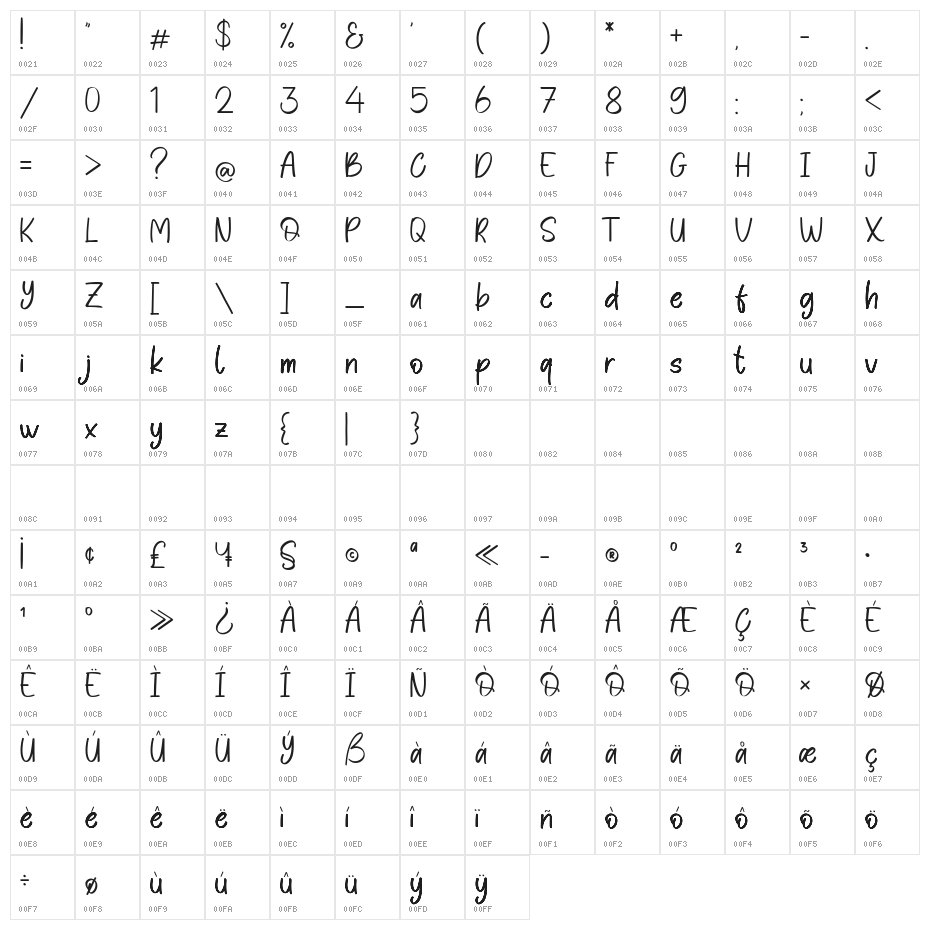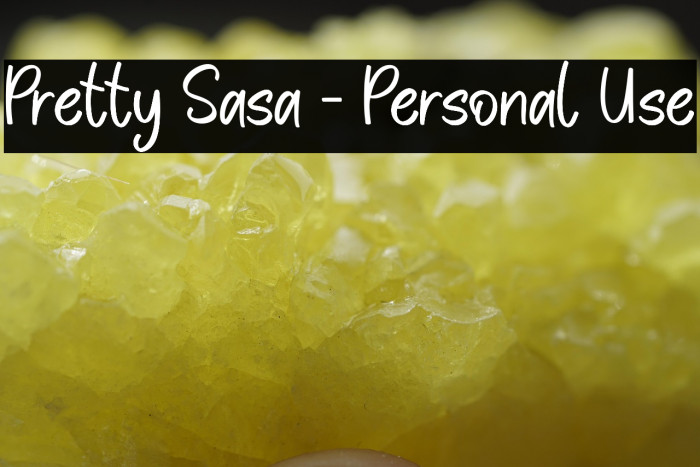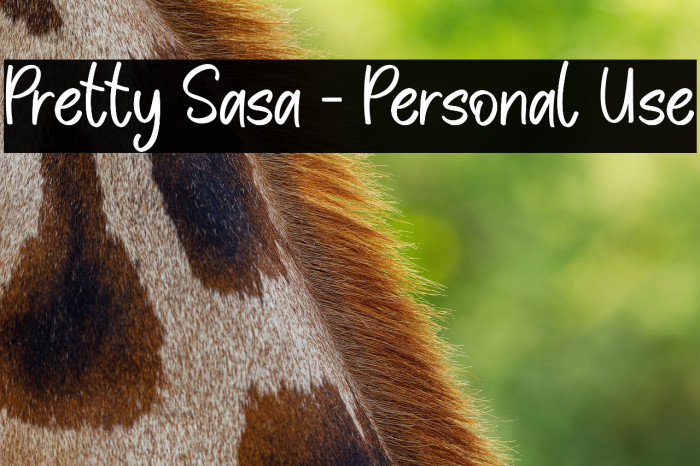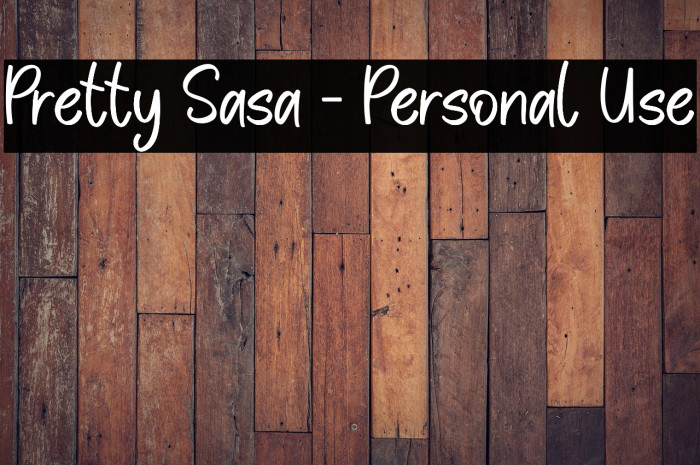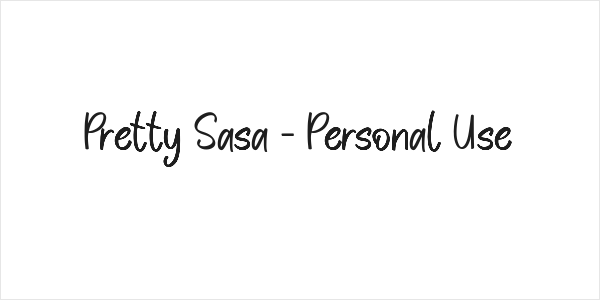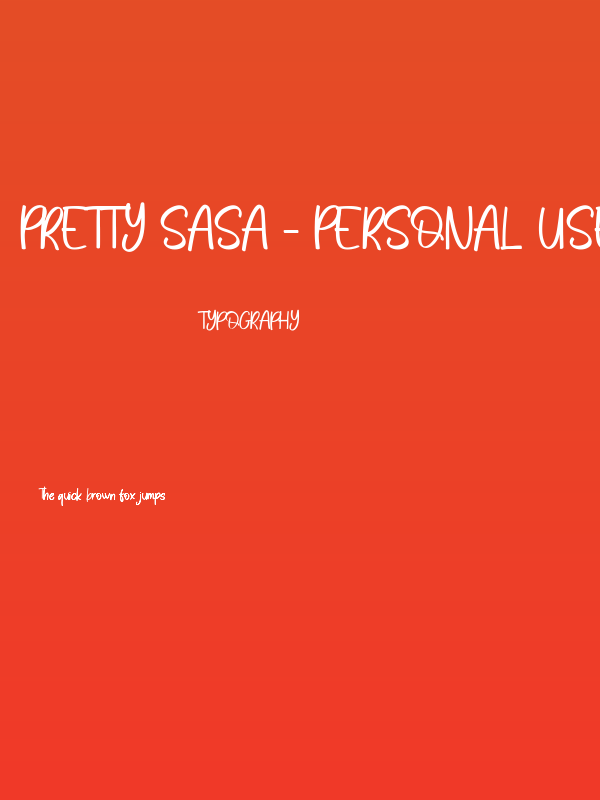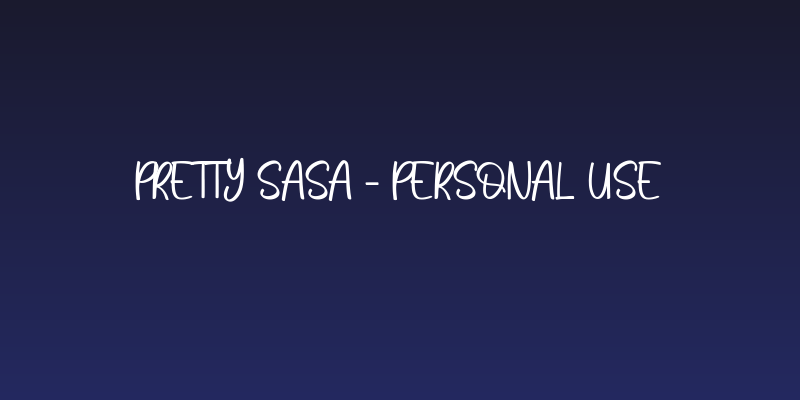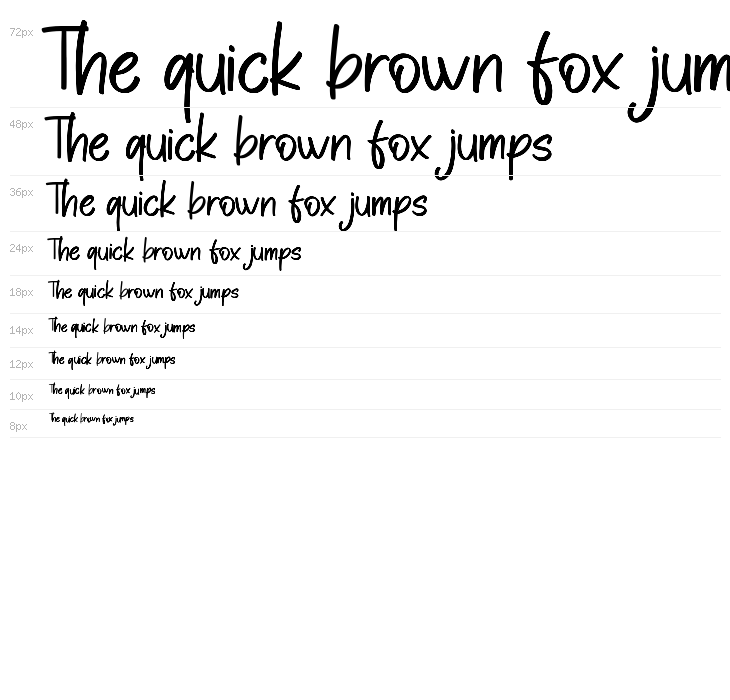
Pretty Sasa - Personal Use Font
Pretty Sasa - Personal Use Description
This font features a playful and casual handwritten style, characterized by its smooth, flowing lines and slightly irregular shapes that give it a personal touch. The uppercase letters are tall and slightly narrow, while the lowercase letters maintain a consistent height, adding to the font's readability. The numerals are rounded and align well with the overall aesthetic, making them easy to distinguish. Special characters are creatively designed, maintaining the font's whimsical nature. The font's overall appearance is friendly and approachable, making it suitable for informal and creative projects.
| Proposed Projects | Ideal for greeting cards, invitations, personal branding, and creative projects that require a friendly and approachable look. |